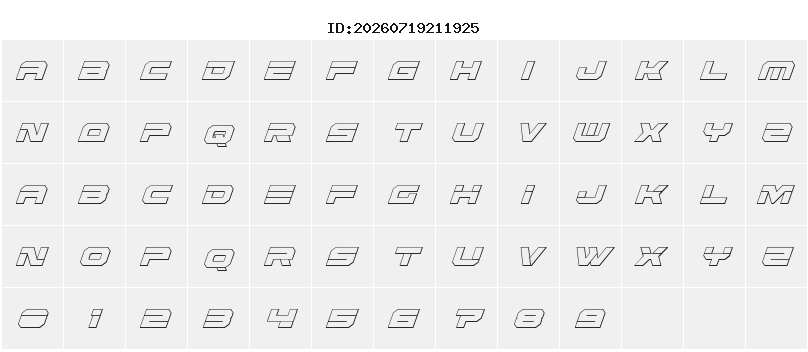
Eridanus Condensed 3D Italic Preview
• Font Name: Eridanus Condensed 3D Italic
• Font Style: Condensed Italic
• Full Font Name: Eridanus Condensed 3D Italic
About Eridanus Condensed 3D Italic.ttf
Eridanus Condensed 3D Italic.ttf is a modern, elegant sans-serif font designed for ultimate readability and visual harmony. Perfect for branding, headlines, web design, and print materials.